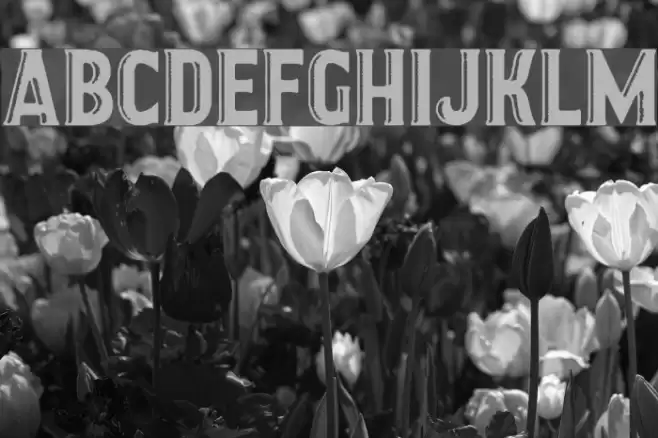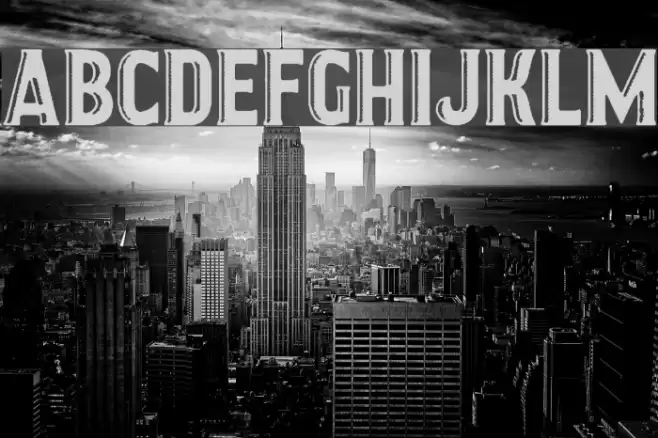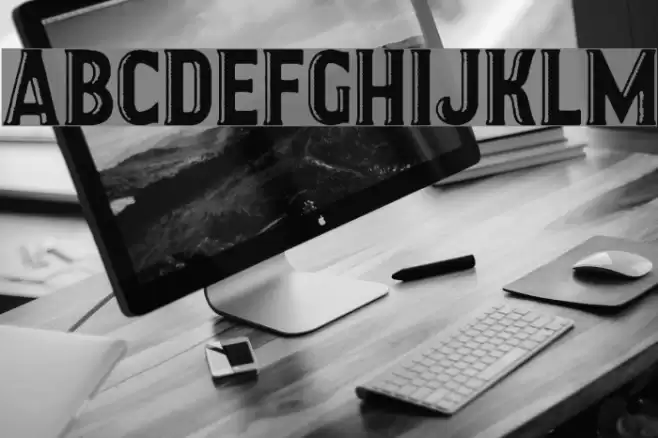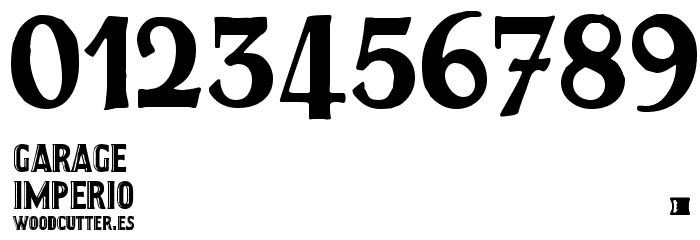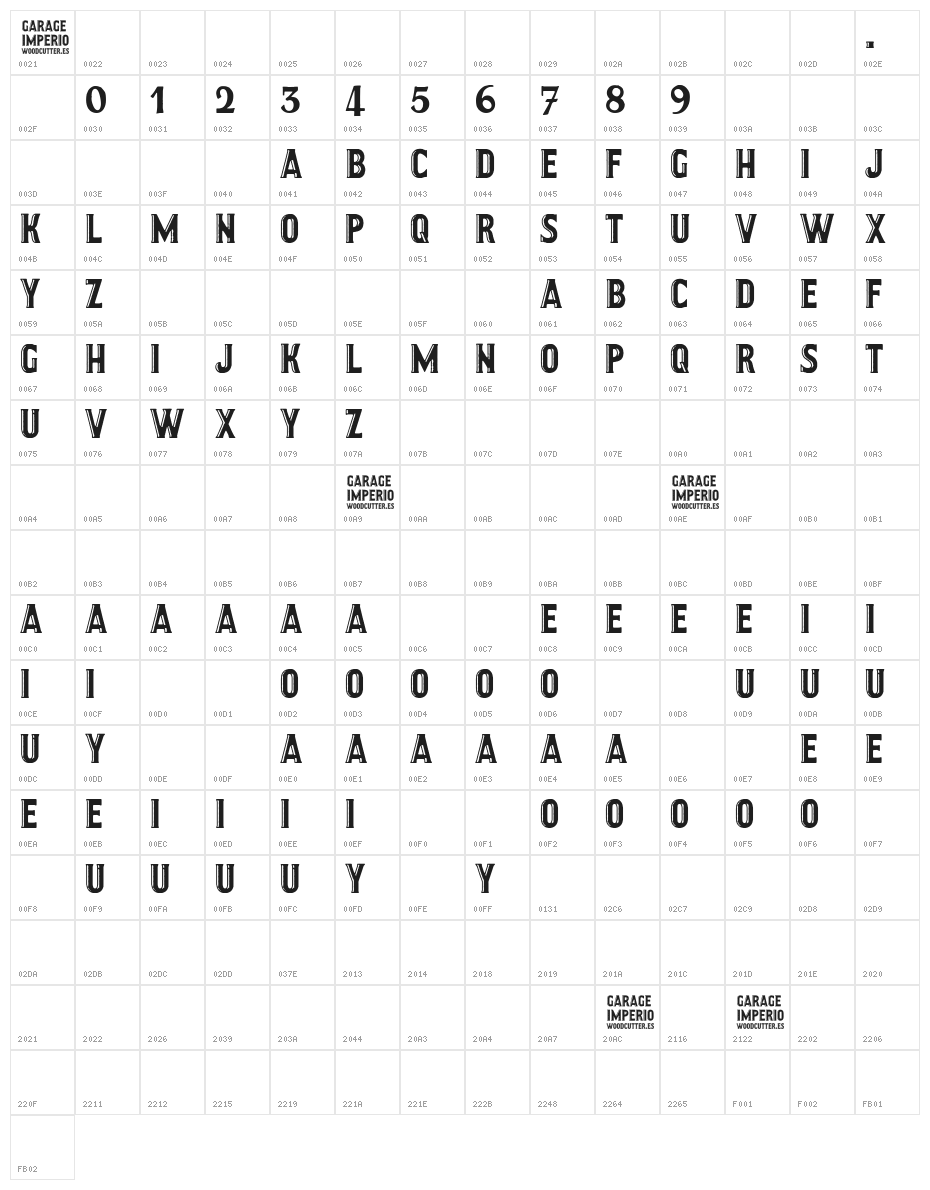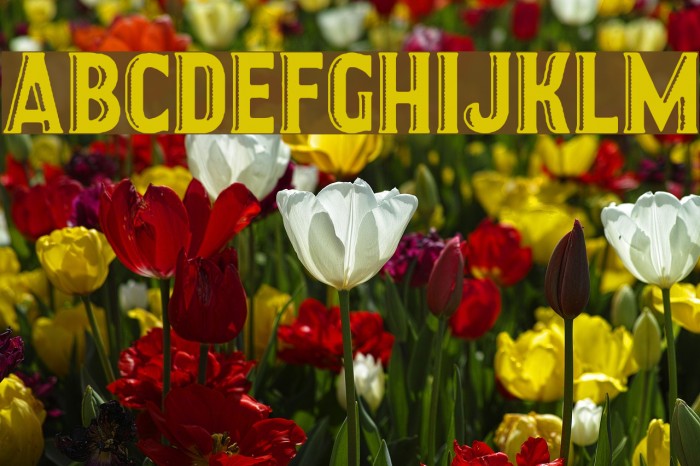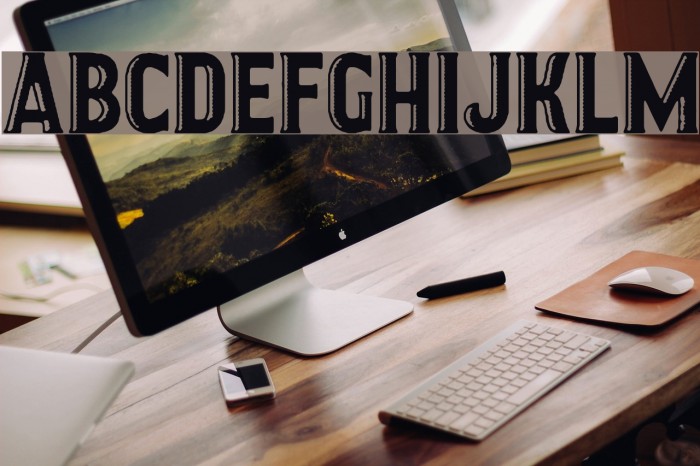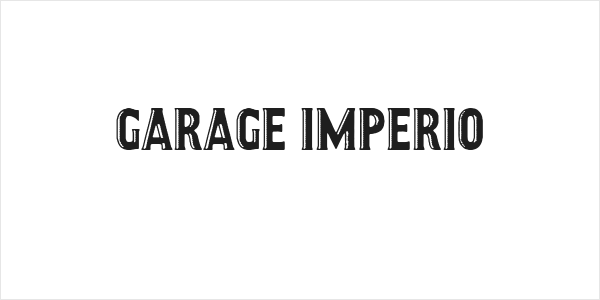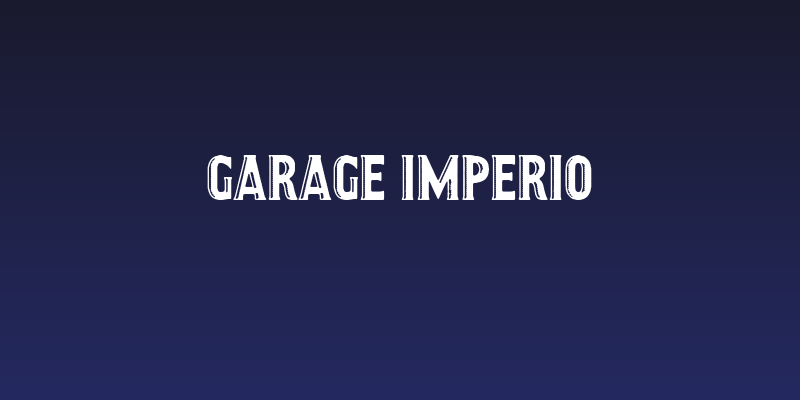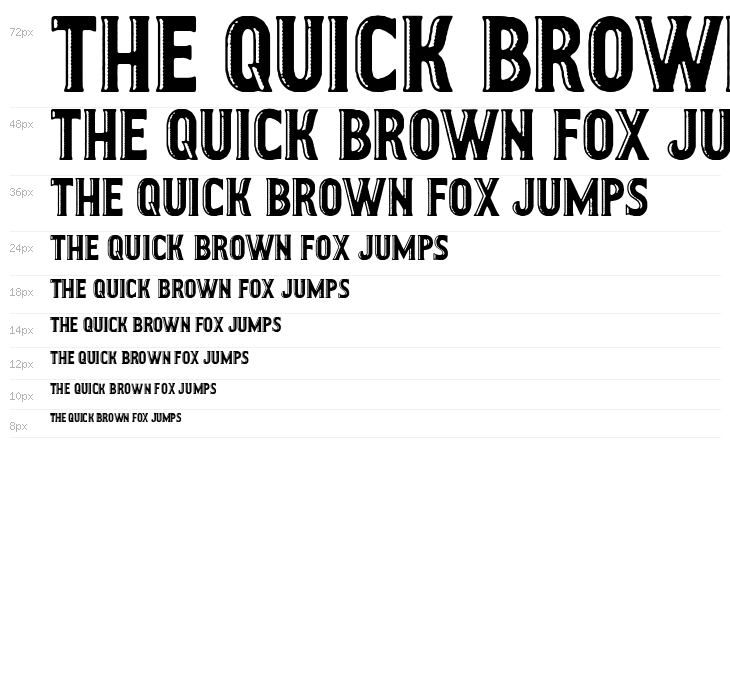
GARAGE IMPERIO Font
GARAGE IMPERIO Description
This font exudes a bold and rugged aesthetic, characterized by its strong, block-like letterforms with a distressed texture. The uppercase letters are prominent and commanding, while the numbers maintain a consistent style that complements the alphabet. The font's unique texture gives it a vintage, industrial feel, reminiscent of old signage or machinery labels. Its bold strokes and slightly condensed form make it highly legible, even at smaller sizes. The font's design is both eye-catching and versatile, suitable for projects that require a touch of nostalgia or a robust, impactful presence.
A bold, textured font with a vintage, industrial feel from Uncategorized fonts.
- Proposed Projects: Ideal for branding, posters, signage, and any project requiring a vintage or industrial aesthetic.
- Overall Style: Vintage